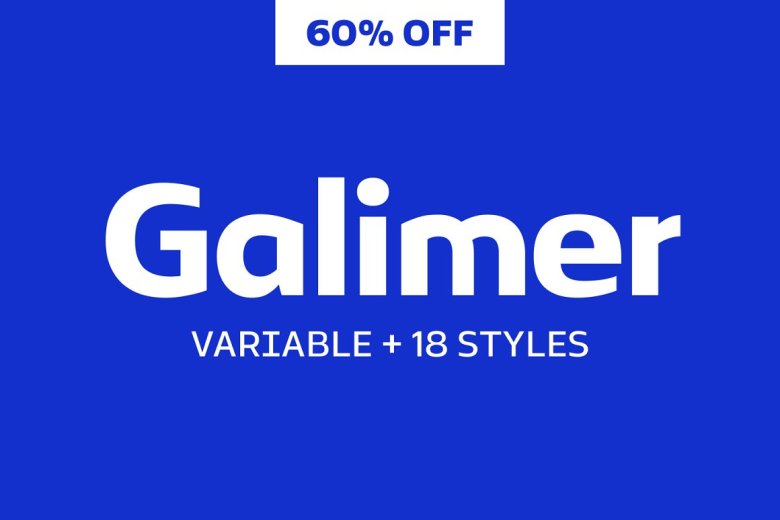
Galimer Font
An elegant humanist variable sans-serif font family, Galimer is composed of 18 styles involving 9 different weights and their corresponding italics; it also sustains two axis variability – weight and italic, and each weight includes support for over 80 languages.
With its plethora of opentype features, like linked characters, kerning pairs, fractions and superiors, Galimer proves a worthy addition to all platforms. (Webfonts, printing, etc.)
Galimer Sans Serif Font